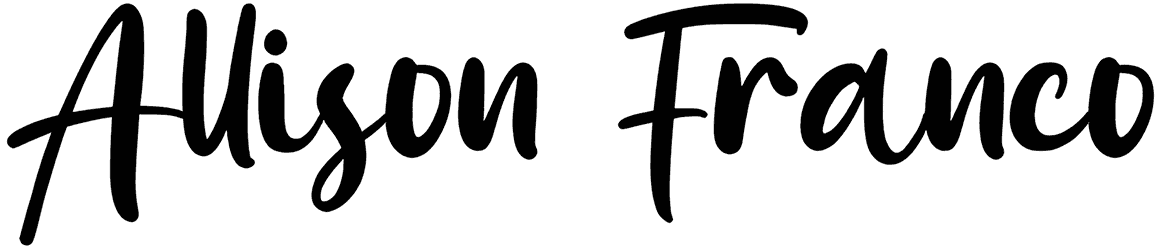
Allison Franco Font
There are not a lot of ways to show delicacy and organic elements in your content except by using handwritten fonts. Allison Franco is the perfect example of it, with hand-drawn marker points giving you all you ask for, making the special artwork.